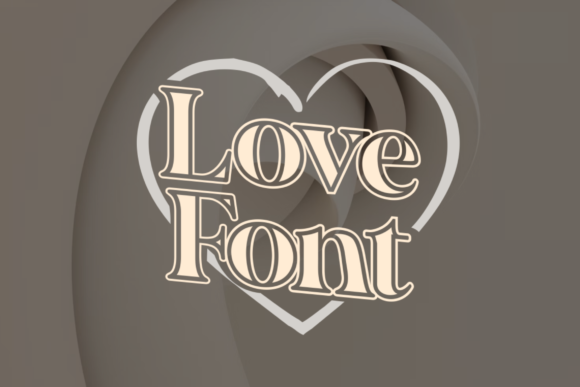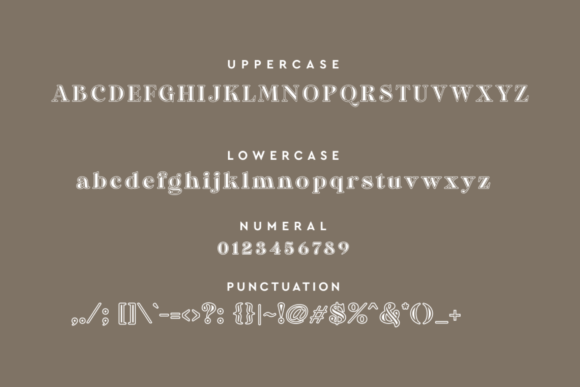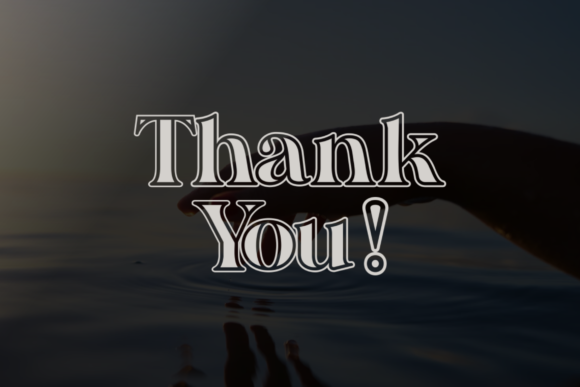
Introduction to One Lanina Font
One Lanina is a bold and authentic serif font.
It is suitable for any branding project such as logos, t-shirt printings, sports, and many more It will look outstanding in a wide range of contexts.
Key Features of One Lanina Font